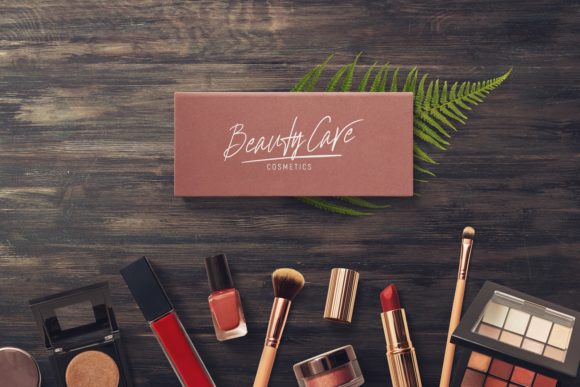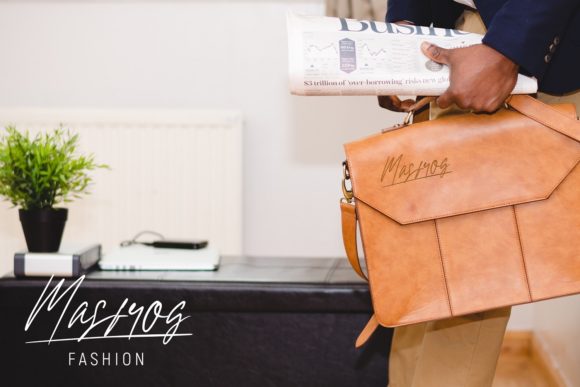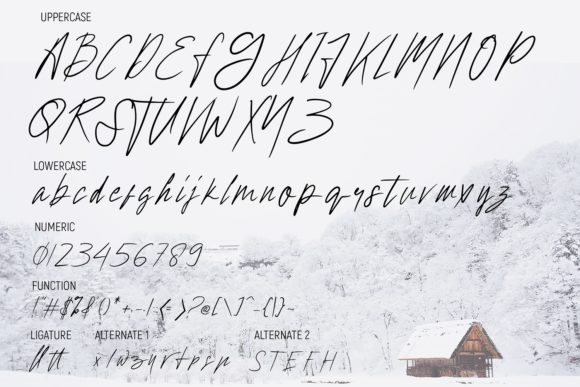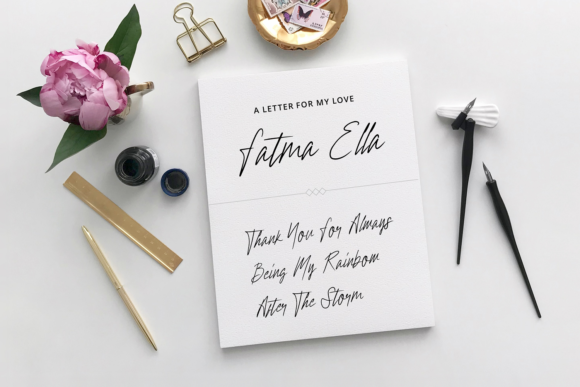
Hollywise Font
About Hollywise Font
Hollywise is a hand-crafted script with beautiful lettering. Use it to turn any design idea into a true piece of art!